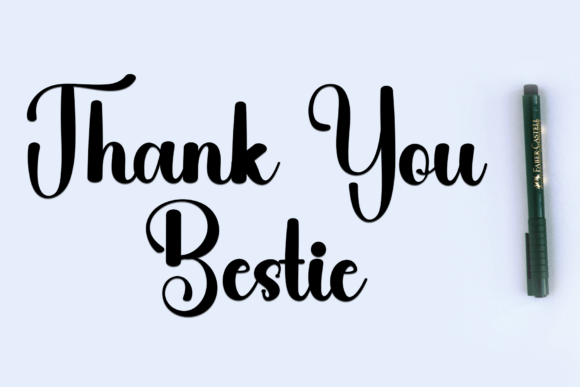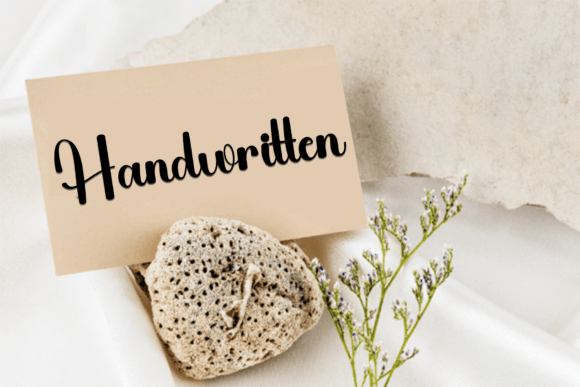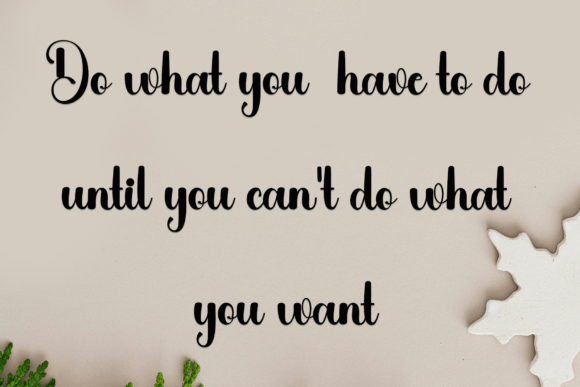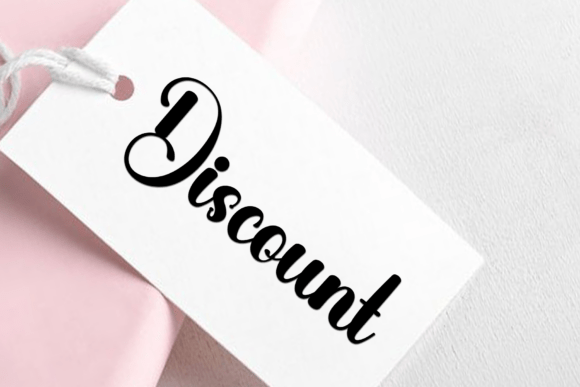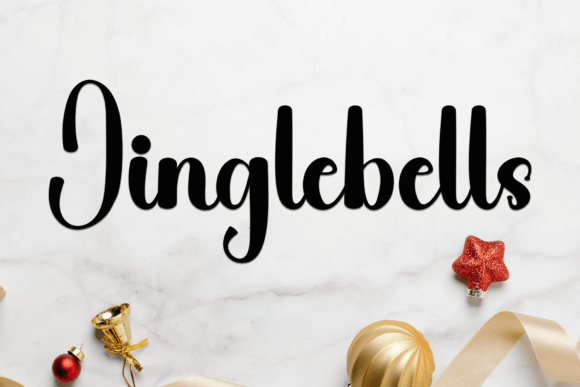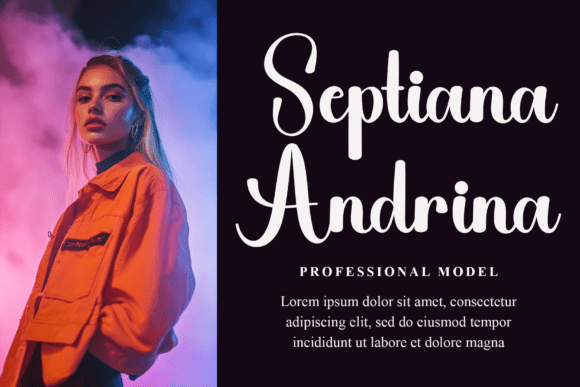
The Elegance of Alphabet Elisabeth Font: A Designer’s Delight
I still remember the time I was working on a wedding invitation project, and my client asked for a font that exuded luxury and sophistication. I scoured the internet, tried out countless fonts, but nothing seemed to fit the bill. That was until I stumbled upon the Alphabet Elisabeth font. It was love at first sight! ✨ The elegant flourishes, the varying stroke weights, and the effortless flow – it was exactly what I needed to elevate my design.
- ✨ Elegant and sophisticated design that’s perfect for luxury brands and wedding invitations
- ✅ Effortless flow that mimics the natural movement of a pen on paper
- ✅ Varying stroke weights that add depth and dimension to my designs
- ✅ OpenType features that allow for creative experimentation
While I adore the Alphabet Elisabeth font, there are a few things to keep in mind: 🤔
- ⚠️ The font can be a bit finicky when it comes to kerning, so be prepared to make some manual adjustments
- ⚠️ Some of the glyphs and stylistic alternates can be a bit tricky to find, but trust me, it’s worth the effort
The Story Behind Alphabet Elisabeth Font
The Alphabet Elisabeth font was designed by a talented type designer who wanted to create a modern calligraphy font that would bring a touch of luxury to any design. Inspired by traditional script styles, the designer experimented with different letterforms and flourishes to create a truly unique font. The result is a font that’s both elegant and sophisticated, perfect for wedding invitations, high-end branding, and editorial headers.
Q: What is the Alphabet Elisabeth font best used for?
A: The Alphabet Elisabeth font is perfect for wedding invitations, high-end branding, editorial headers, and any design that requires a touch of luxury and sophistication.
Q: Is Alphabet Elisabeth font suitable for body text?
A: While Alphabet Elisabeth font is stunning, it’s best used for headings and titles. For body text, you might want to opt for a more readable font.
Q: Can I use Alphabet Elisabeth font for digital projects?
A: Absolutely! Alphabet Elisabeth font is perfect for digital projects, from social media graphics to website headers.